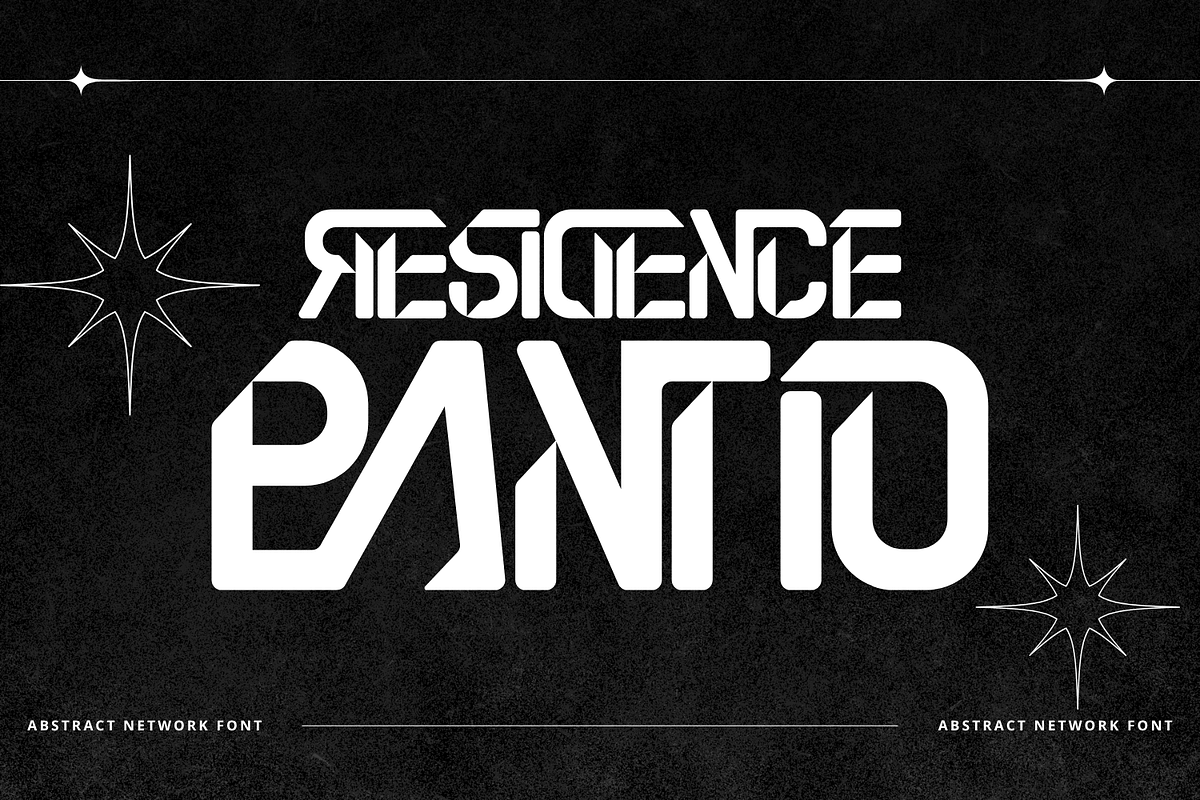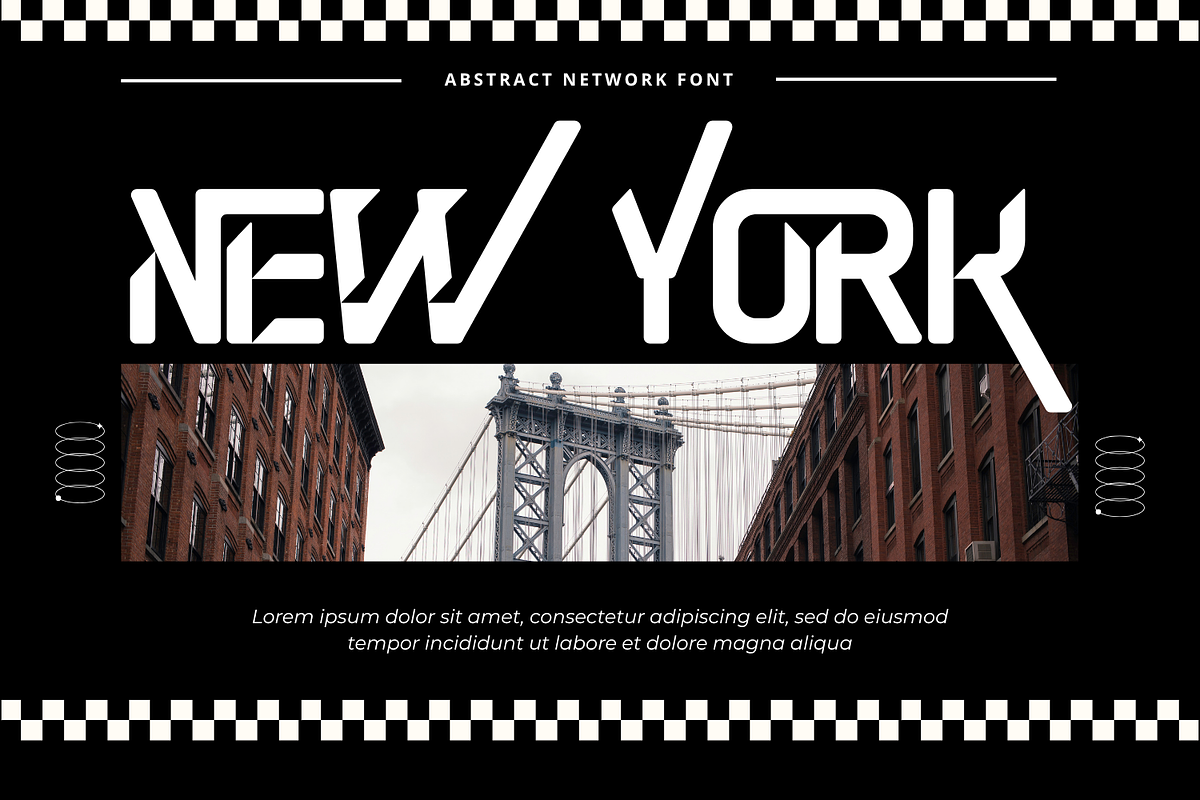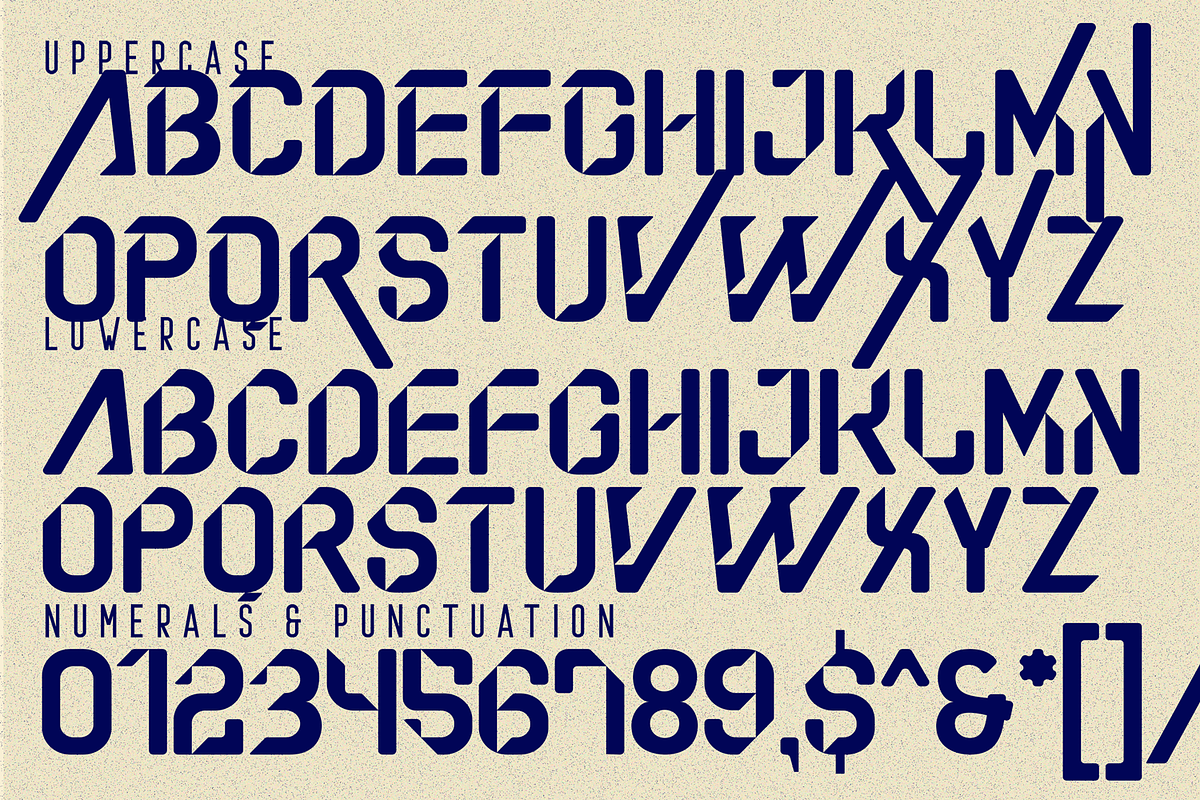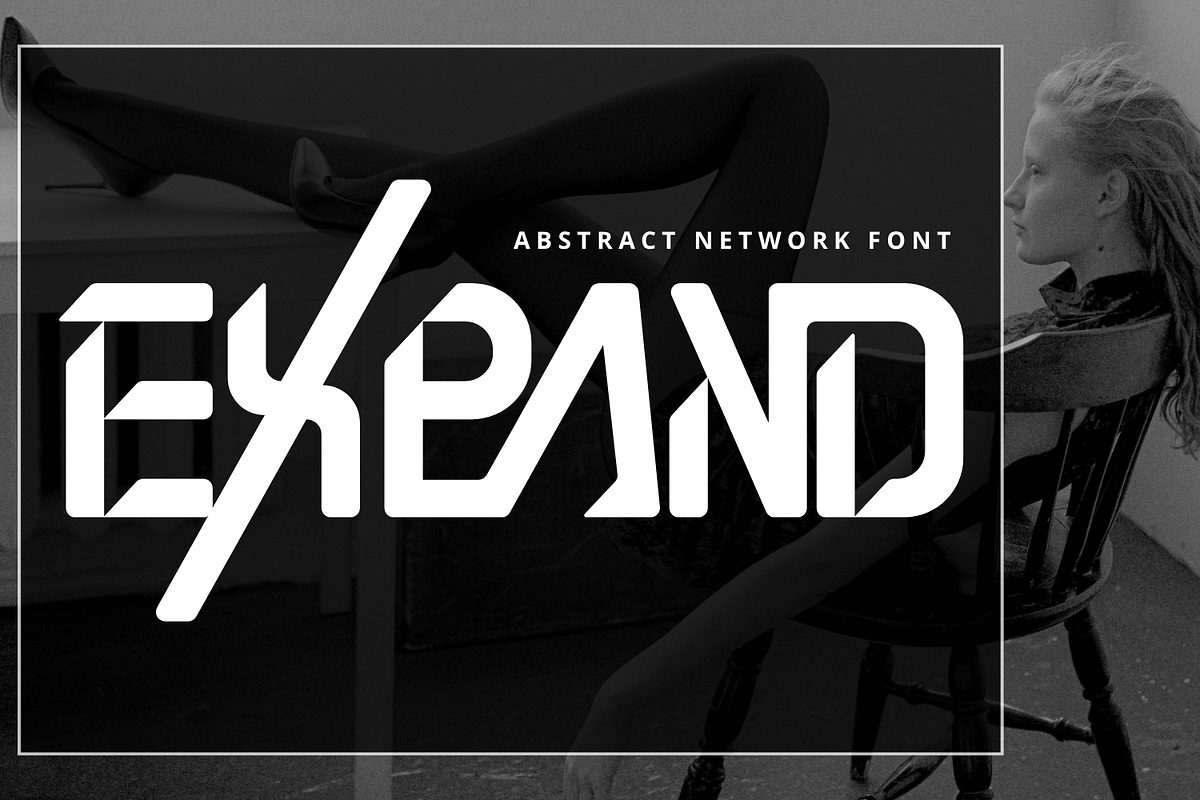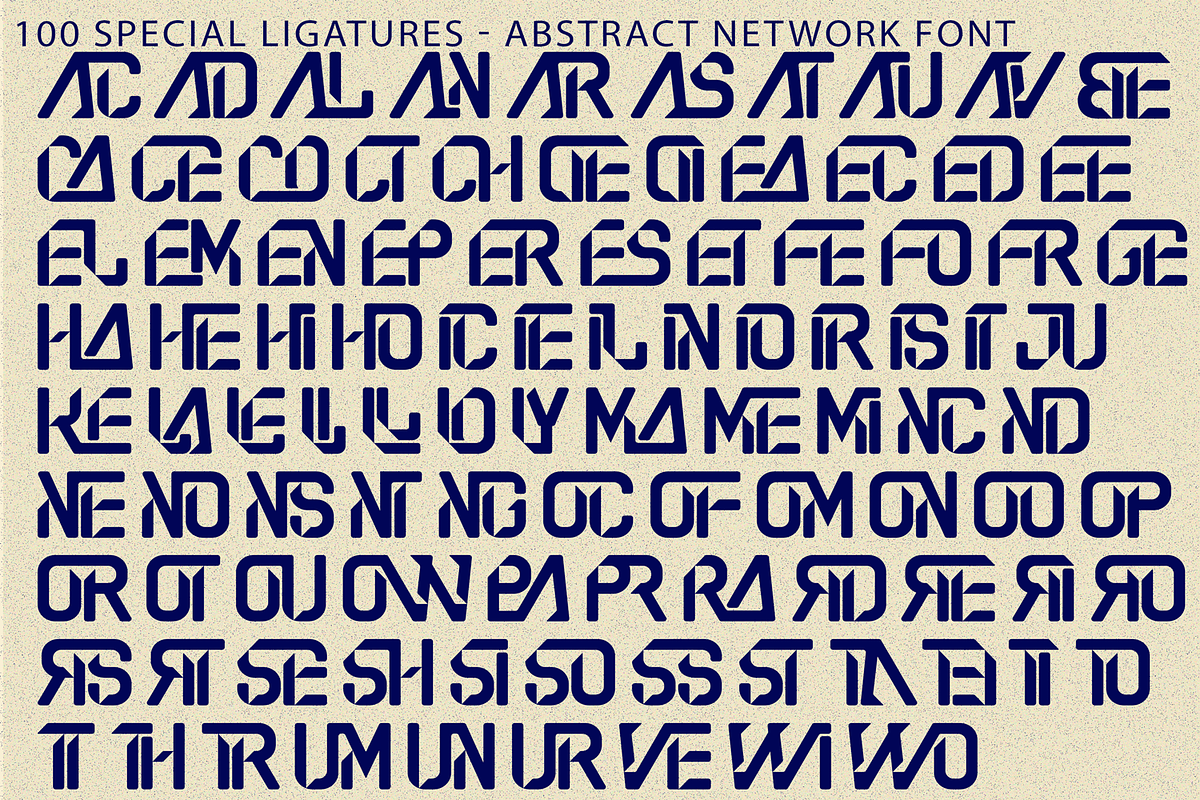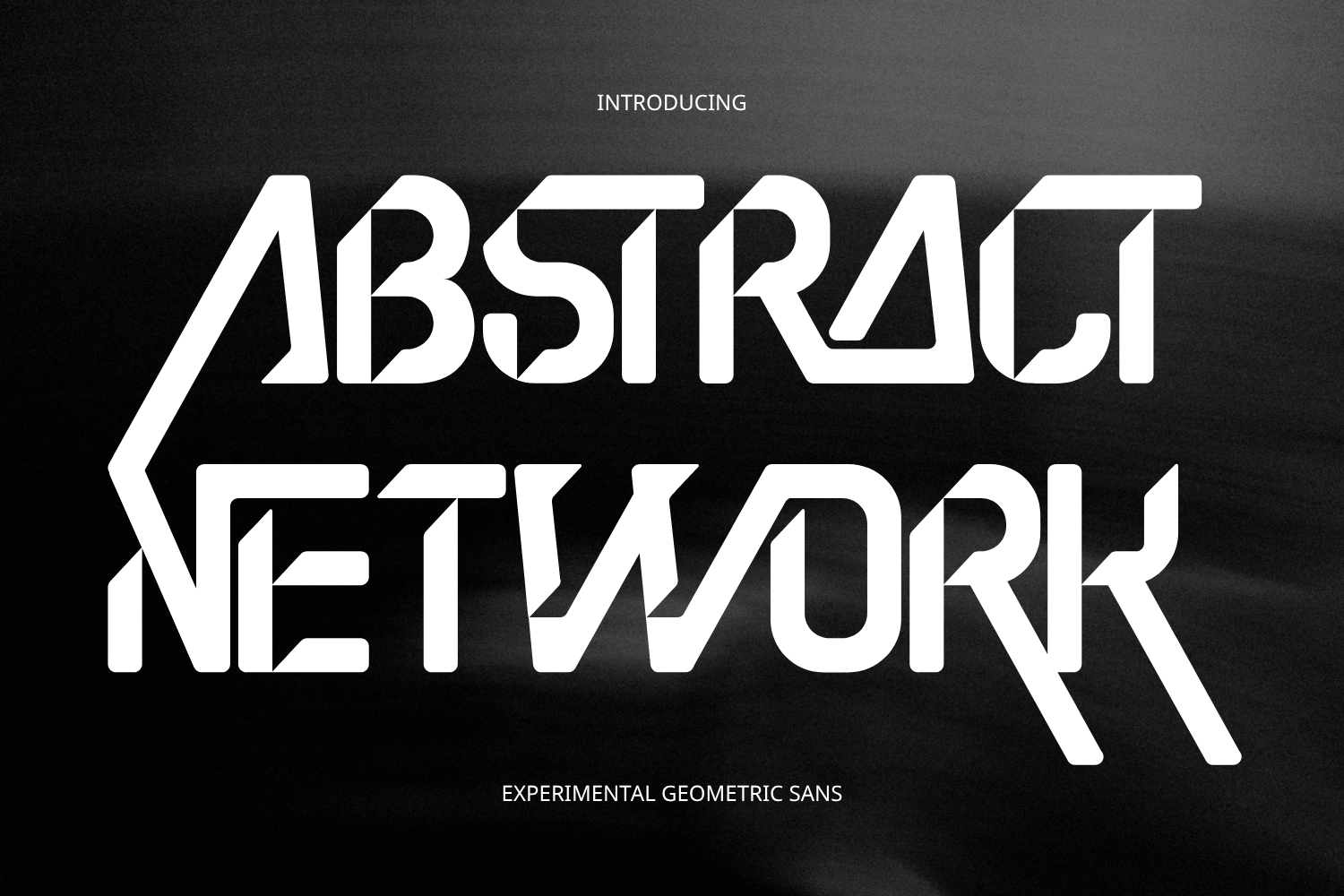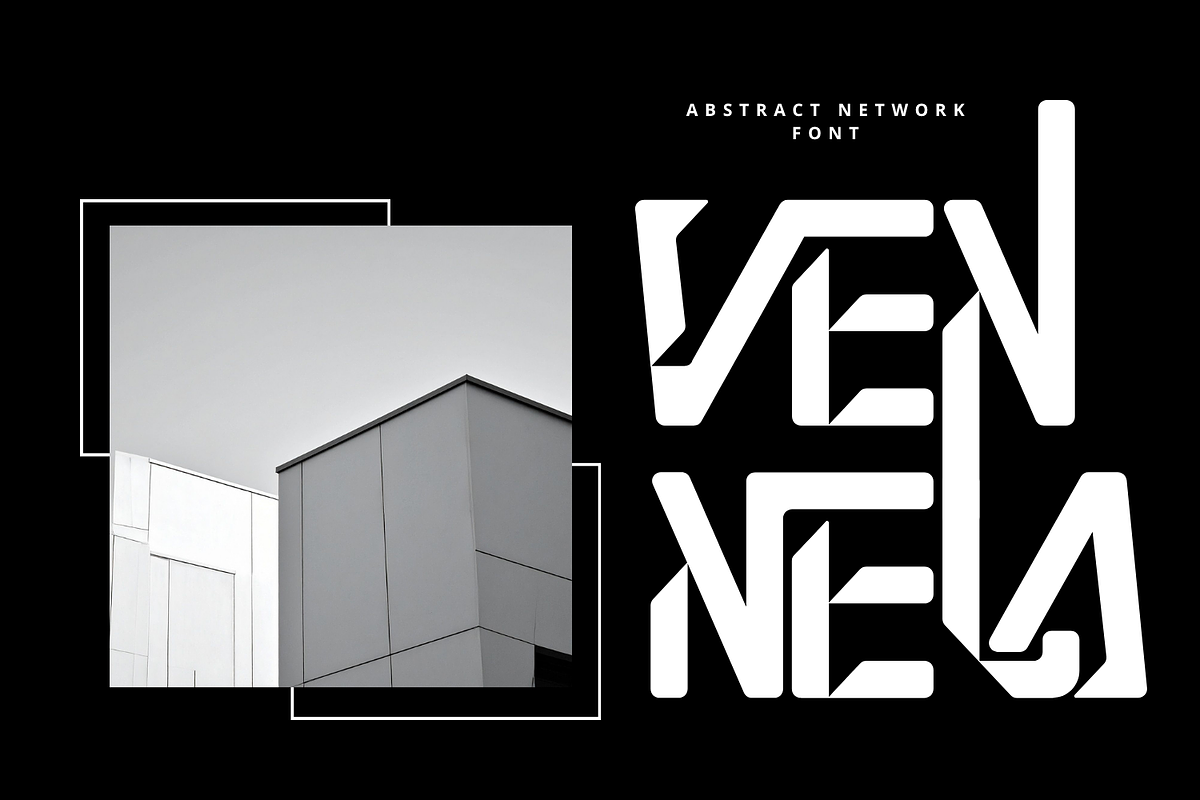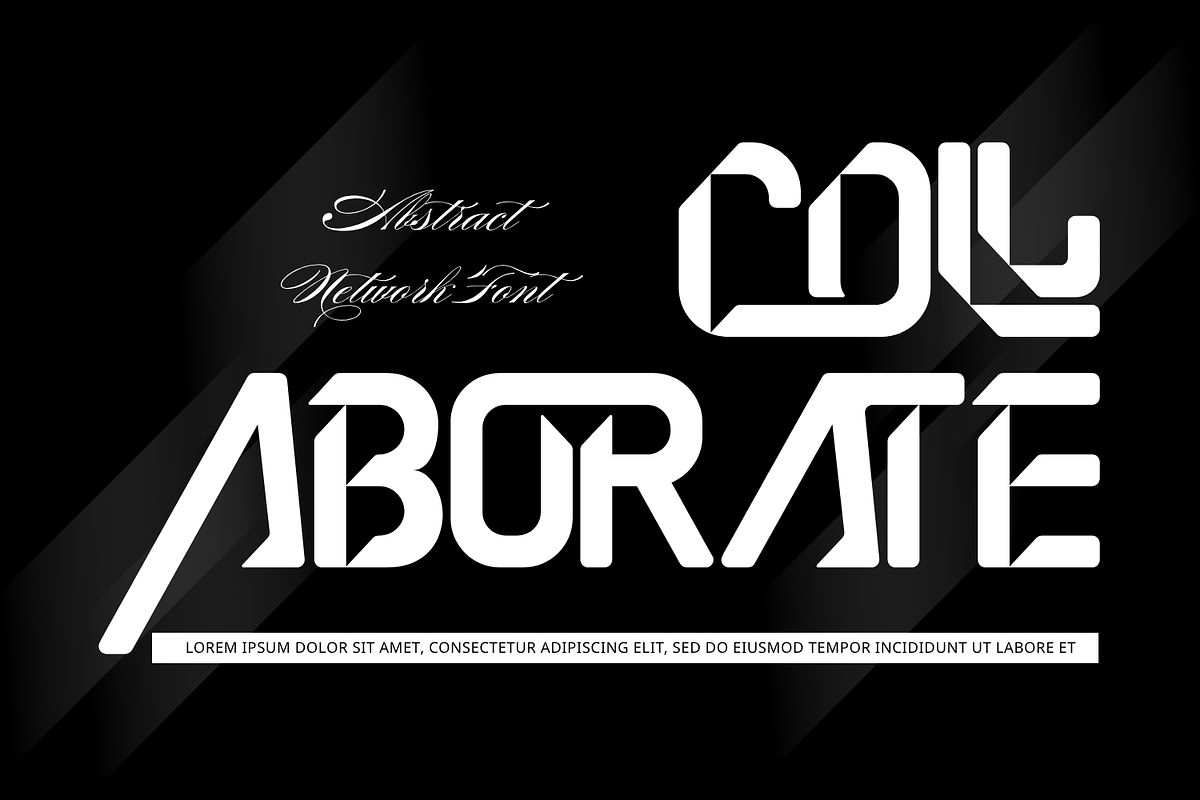
Abstract Network - Futuristic Font
Abstract Network - Futuristic Font – Geometric Folded Ribbon & Origami Cybertech Display Font, a striking geometric techno display font inspired by origami paper folds, architectural ribbon structures, and high-tech cybernetics. Defined by its precise 45-degree angular bevels, stencil-style overlapping slashes, and sharp dimensional folds, this typeface turns standard headlines into complex, 3D ribbon logotypes.
Engineered with dramatic extended framing strokes—such as sweeping enclosure lines and long diagonal tail extensions—Abstract Network creates instant visual rhythm and structural authority. It is the definitive display font for AI and crypto branding, gaming logotypes, cyberpunk posters, architectural exhibitions, techwear apparel, and futuristic album covers.
Around 100 Special Ligatures & Alternates
🔤About 100 ligatures combined with Stylistic Alternates Font:
ac ad al an ar as at au av be ca ce ch co ct de di ea ec ed ee el em en ep er es et fe fo fr ge ha he hi ho ie ic il in io ir is it ju ke la le li ll lo ly ma me mi nc nd ne ng no nt ns oc of om on oo op or ot ou ow pa pr ra rd re ri ro rs rt se sh si so ss st ta te th ti to tr tt um un ur ve wi wo